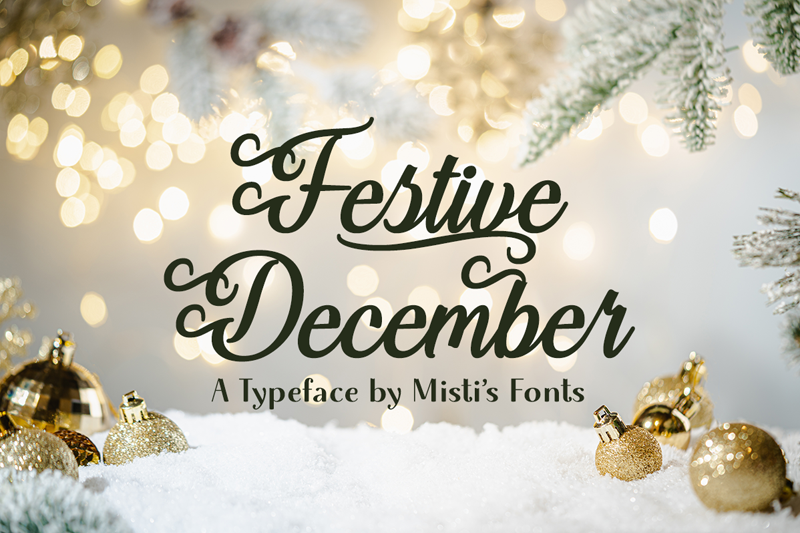
Introducing Festive December, the perfect typeface for all your holiday design needs! This elegant, calligraphy styled font is a true showstopper, with its bold and decorative flourishes that add a touch of fancy to any project. Terms Of Use and Commercial Licensing: https://mistifonts.com/festive-december/ |